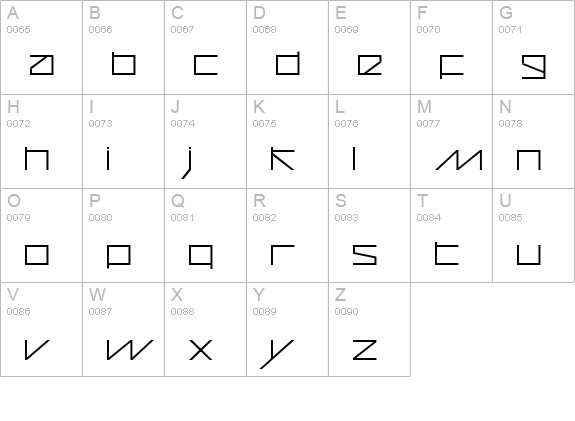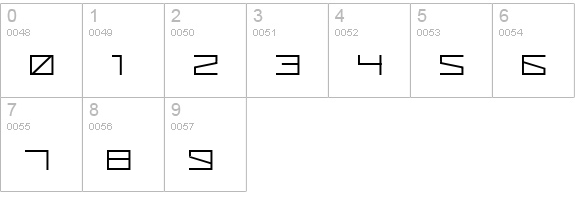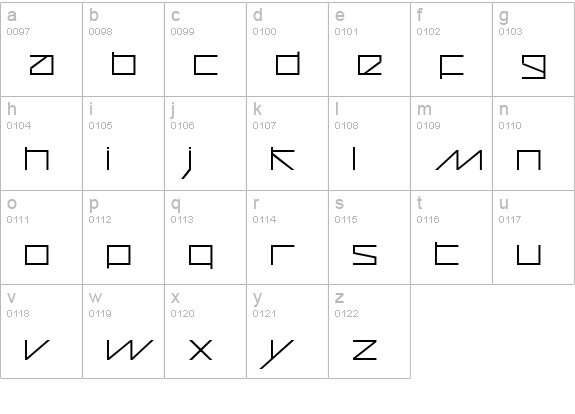
Introducing Cubos, a modern and stylish font that will elevate your designs to new heights. With its geometric shapes and clean lines, this font exudes a sense of sophistication and professionalism. Whether you're creating a logo, designing a website, or working on a branding project, Cubos will make a lasting impression. What sets Cubos apart is not only its sleek design, but also the fact that it is free. Yes, you read that right - this incredible font is freely available to download at FontsMarket.com. We believe that good design should be accessible to all, and Cubos exemplifies that philosophy. Imagine the possibilities with Cubos. Its versatility allows it to be used in a range of applications, from headlines and titles to body text and captions. The clean and legible letterforms ensure that your message is conveyed with clarity and impact. The attention to detail in Cubos is truly remarkable. Each letter has been meticulously crafted to create a harmonious balance between form and function. The result is a font that is not only visually stunning, but also highly readable. Whether you're a professional designer or a novice enthusiast, Cubos is the perfect addition to your font collection. Its bold and contemporary style will instantly elevate your designs and add a touch of sophistication. And with its availability for free download at FontsMarket.com, there's no reason not to give it a try. So go ahead, unleash your creativity and explore the endless possibilities with Cubos. Download this exceptional font today and let your designs shine like never before.